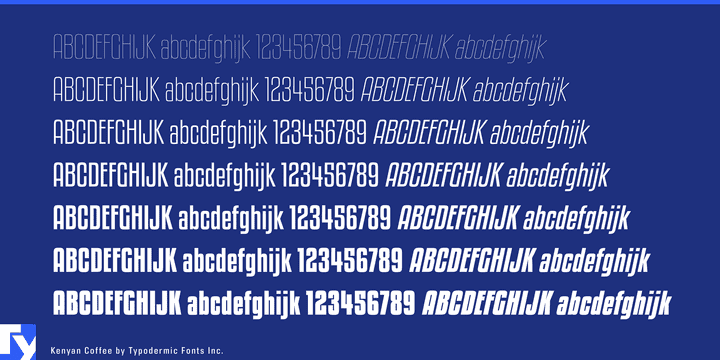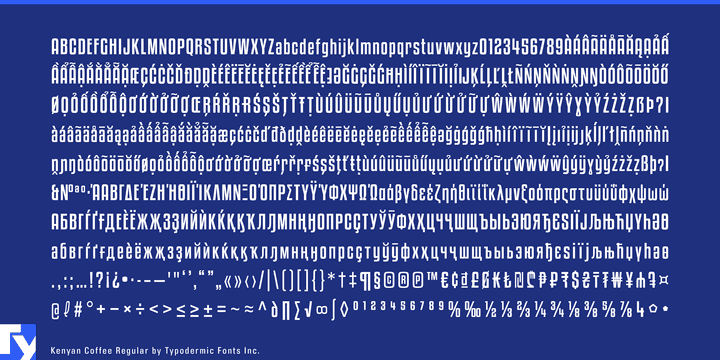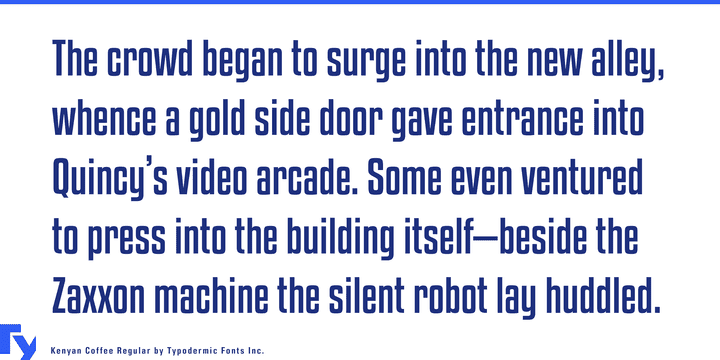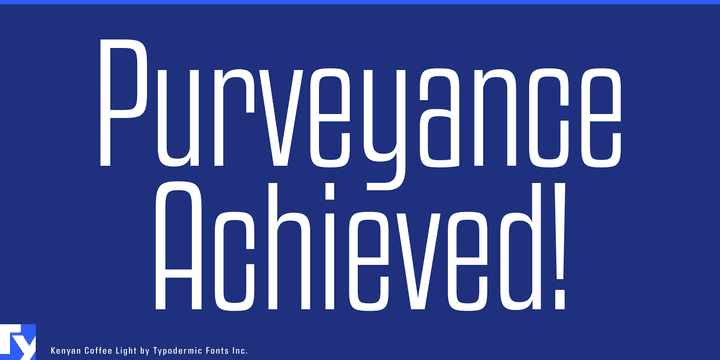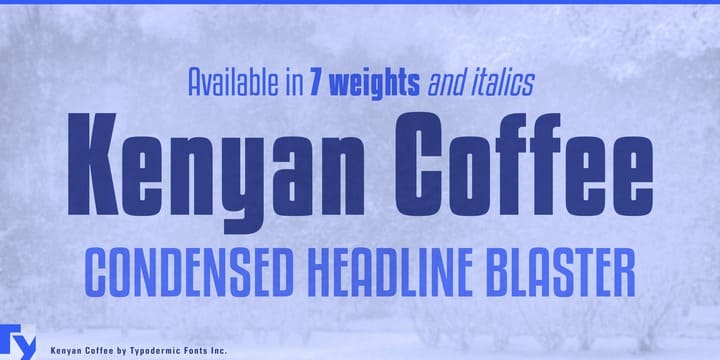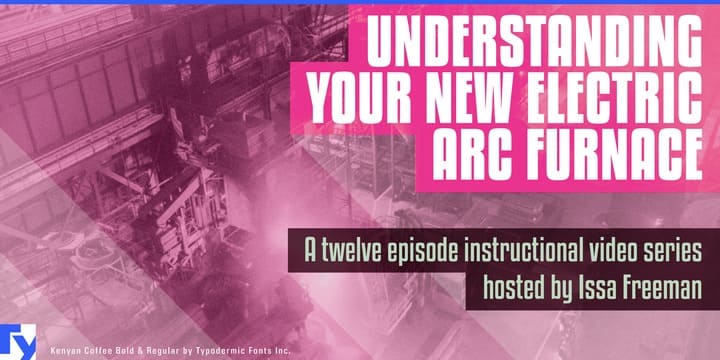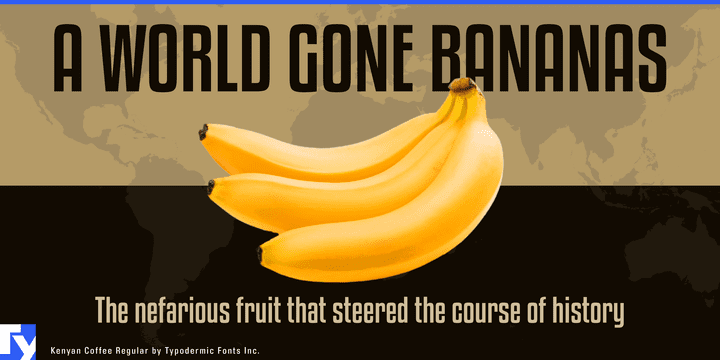
The pentagon bullet and original numeral 4 can be accessed in OpenType savvy applications using the Stylistic Alternates feature. The new Indian Rupee symbol (Unicode 20B9) is included. Vertical metrics have been altered to allow for taller accents and cross-browser compatibility.
The overall style has changed to something which represents something closer to my original vision for Kenyan Coffee. Kenyan Coffee Regular, Italic, Bold & Bold Italic are still free for commercial use. Ultra-Light, Extra-Light, Light, Book, Semi-Bold + Italic styles are now available for purchase.